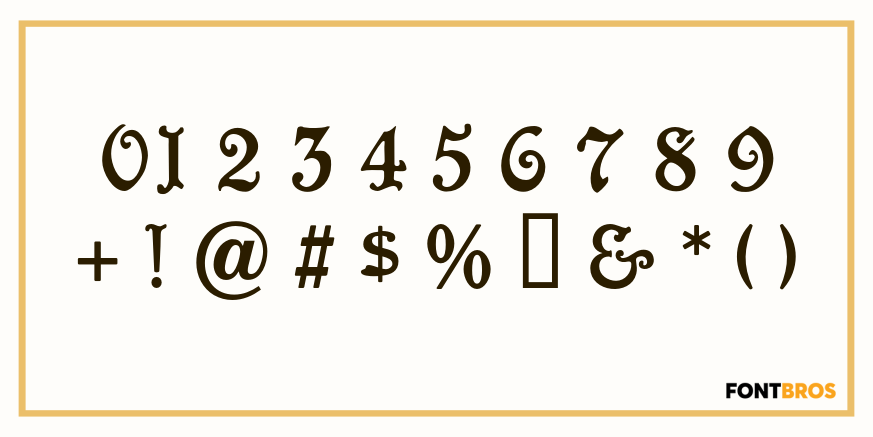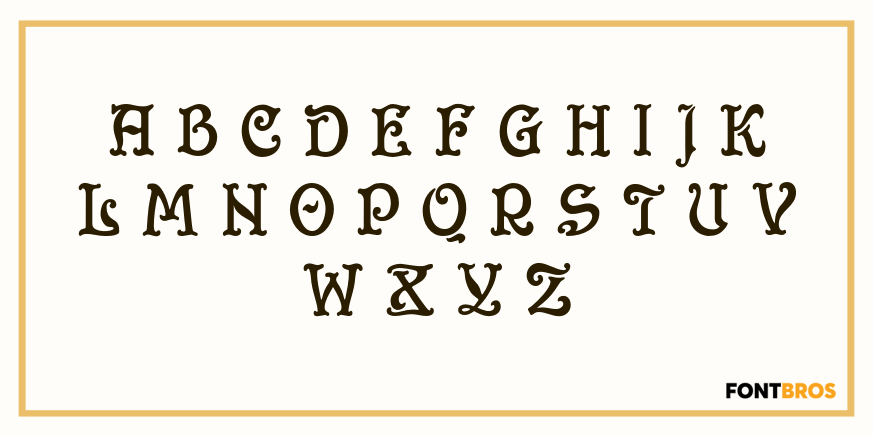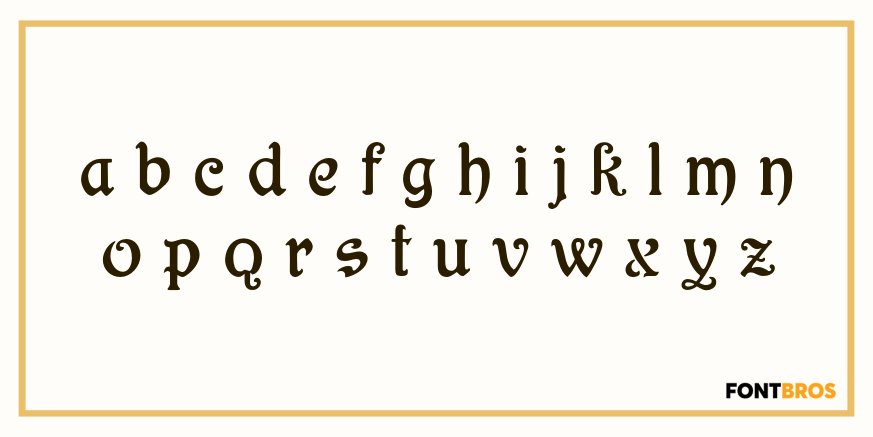
Huntsman
Font Family by Solotype
Issued from the Haddon Foundry in England. Most of their original faces had names beginning with H, like their own name. Some of their types were designed by Phil May, but we cannot guarantee that this is one of them.